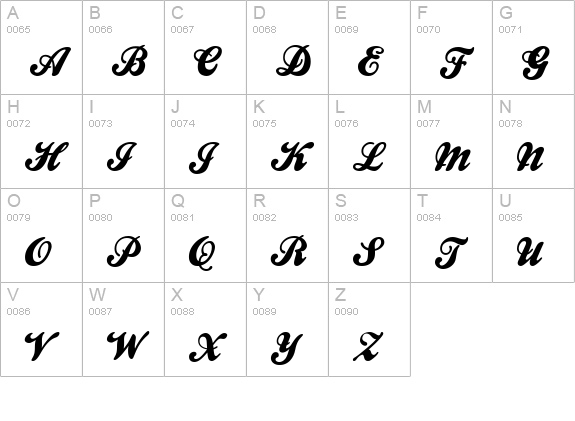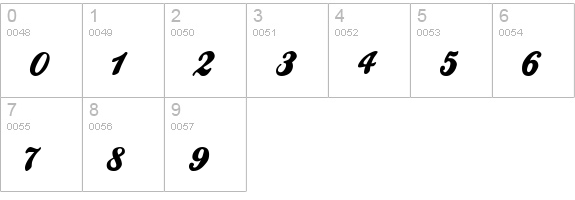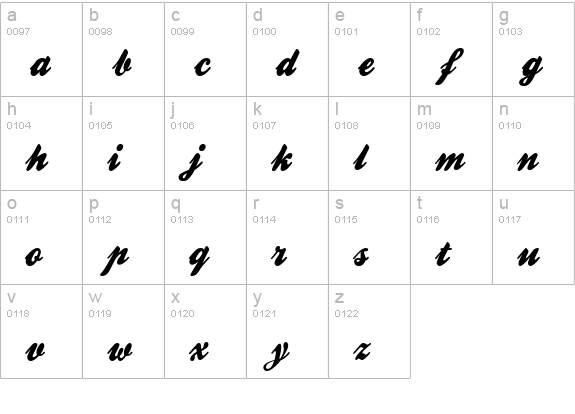
Ballpark Weiner Font Details
Ballpark Weiner font is a fun and quirky typeface that captures the spirit of a casual and carefree atmosphere. With its rounded edges and playful design, this font is perfect for adding a touch of whimsy to your projects. Whether you're creating invitations, posters, or social media graphics, Ballpark Weiner font is sure to make your text stand out. The best part? Ballpark Weiner font is completely free to download at FontsMarket.com. You can easily access this charming font and incorporate it into your designs without any cost. So why wait? Download Ballpark Weiner font today and let your creativity shine with this delightful typeface.